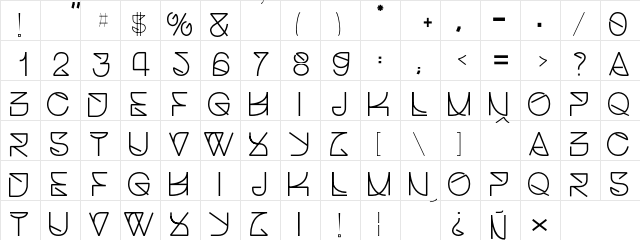
Helvetica Struggle Regular
Foundry: PYRS Fontlab Ltd. / Made with FontLab
Designer: Erik Vicente de Vera
Design Context for Helvetica Struggle
Helvetica Struggle is a composed and adaptable typeface that performs quietly and consistently across a wide range of design contexts.